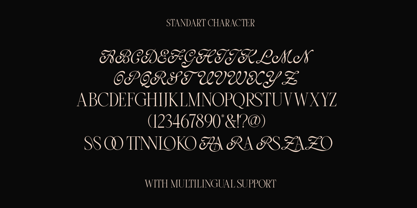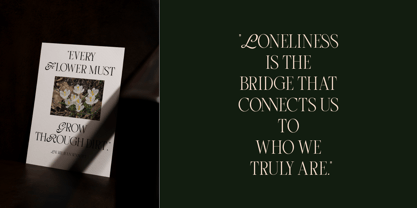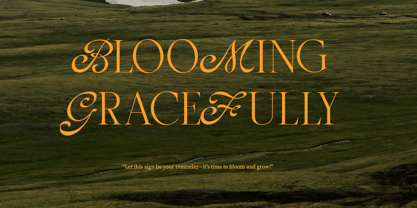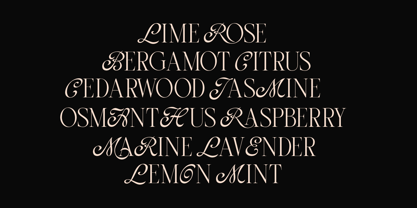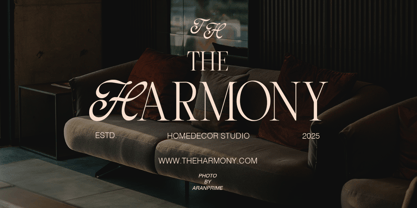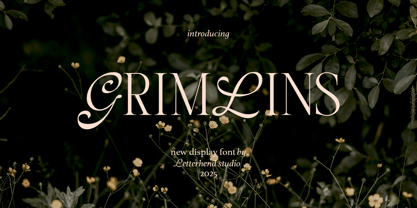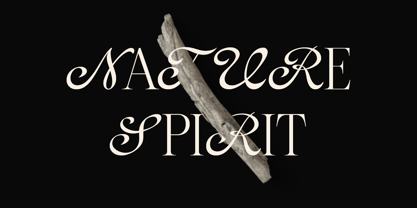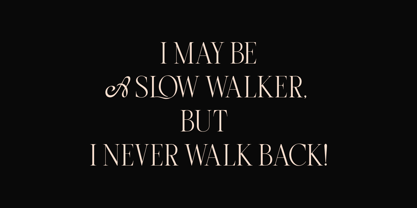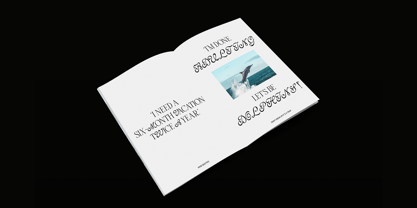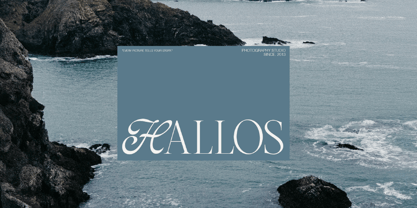
Grimlins
by Letterhend
The Grimlins Font Family was designed by Hendry Juanda and published by Letterhend. Grimlins contains 1 styles. More about this family
Grimlins is a mesmerizing display font that blends elegance with a touch of luxury. Its refined serif structure, paired with graceful swashes, evokes an enchanting, classy aesthetic perfect for luxury branding, editorial design, invitations, and packaging. Whether crafting a romantic theme or an ethereal fairytale-inspired project, Grimlins brings an irresistible charm that elevates any design.
Features :
• Uppercase & lowercase
• Numbers and punctuation
• Alternates Character
• Multilingual support